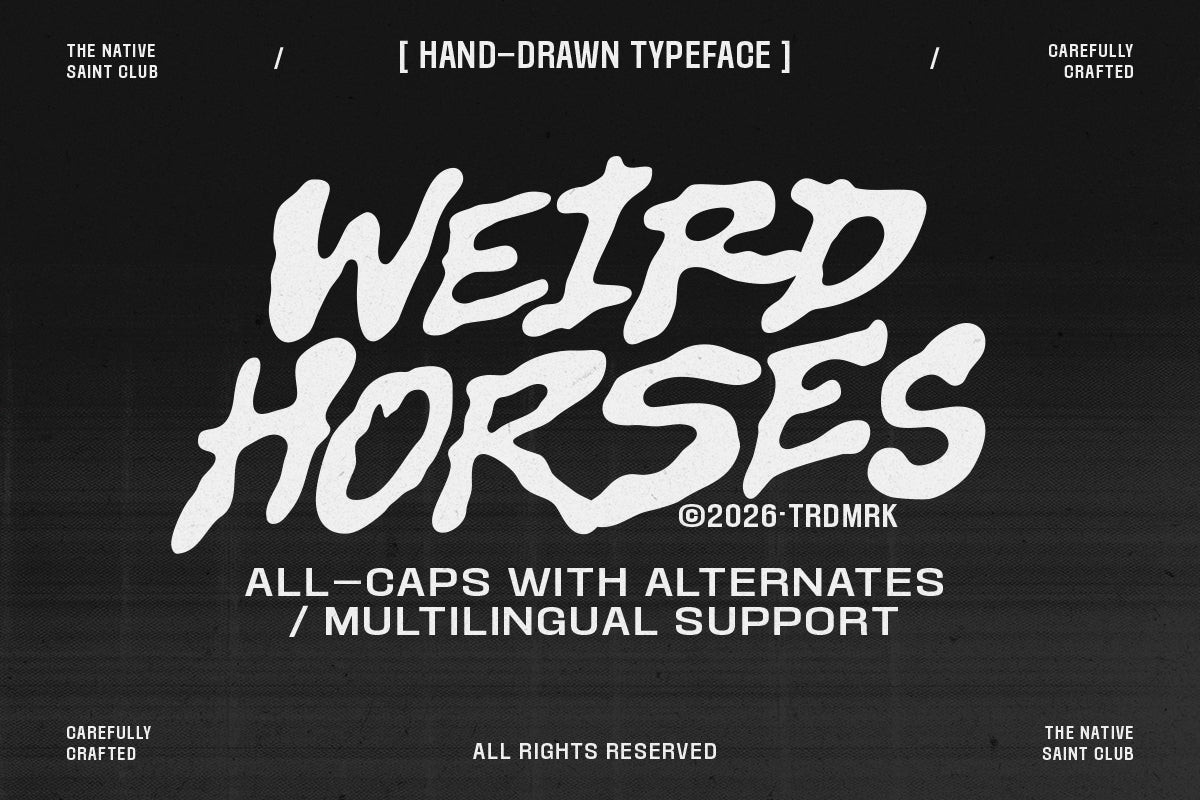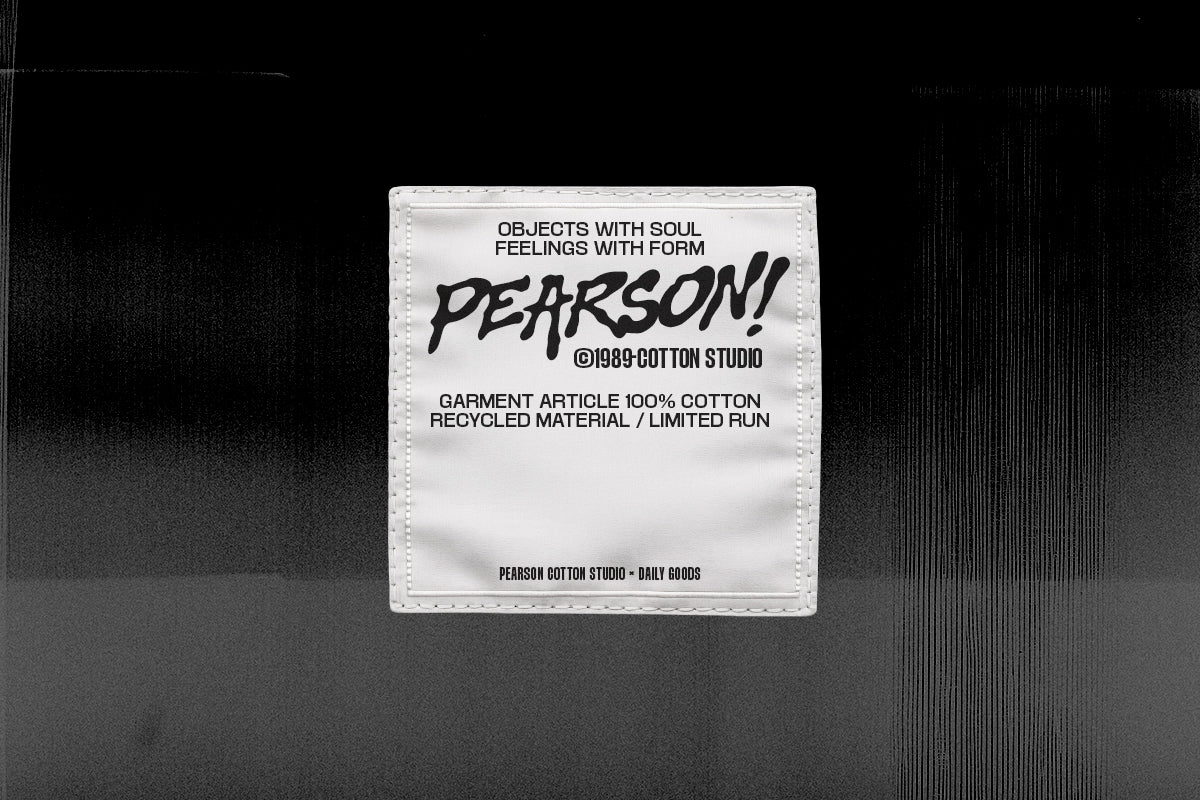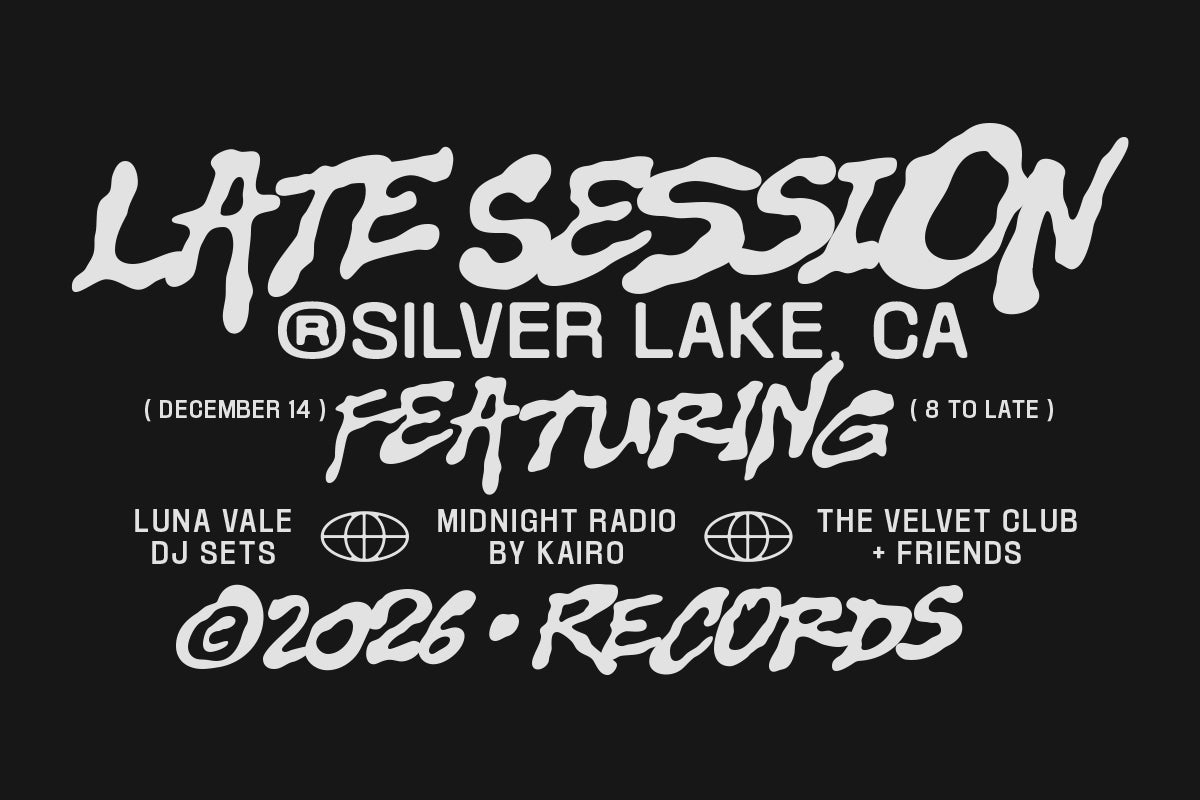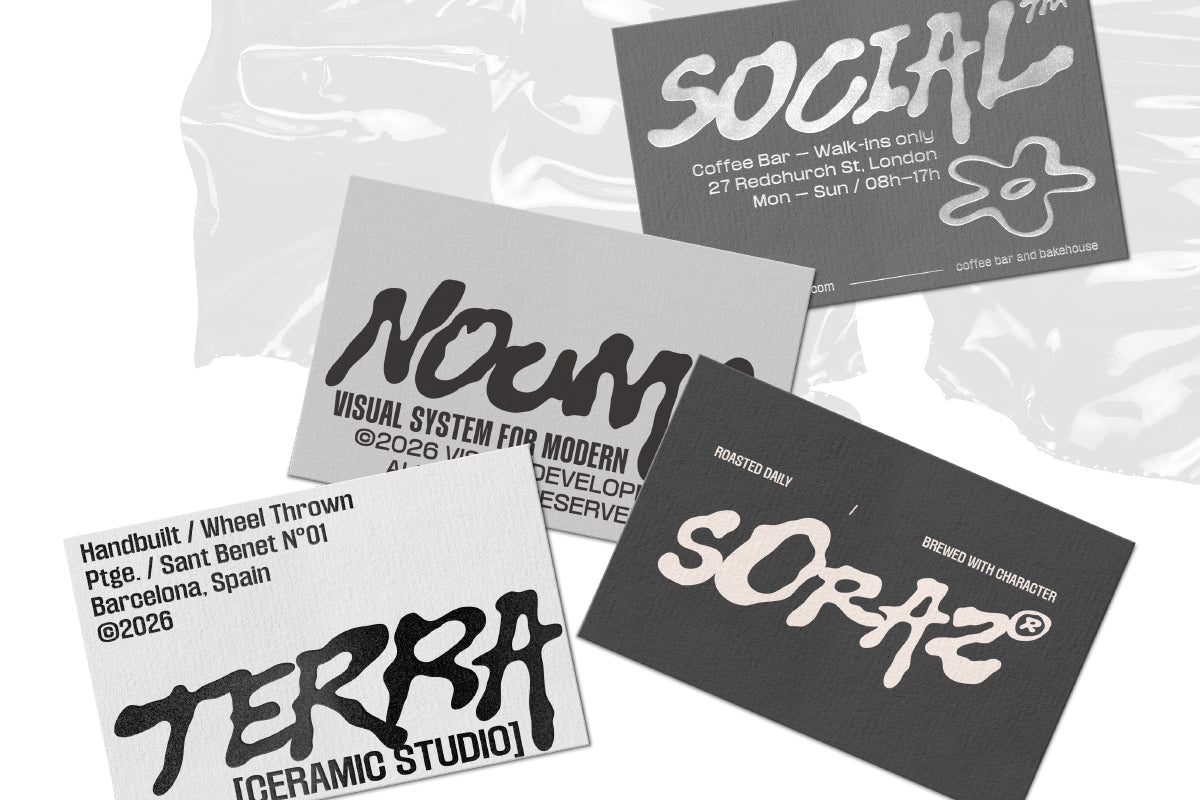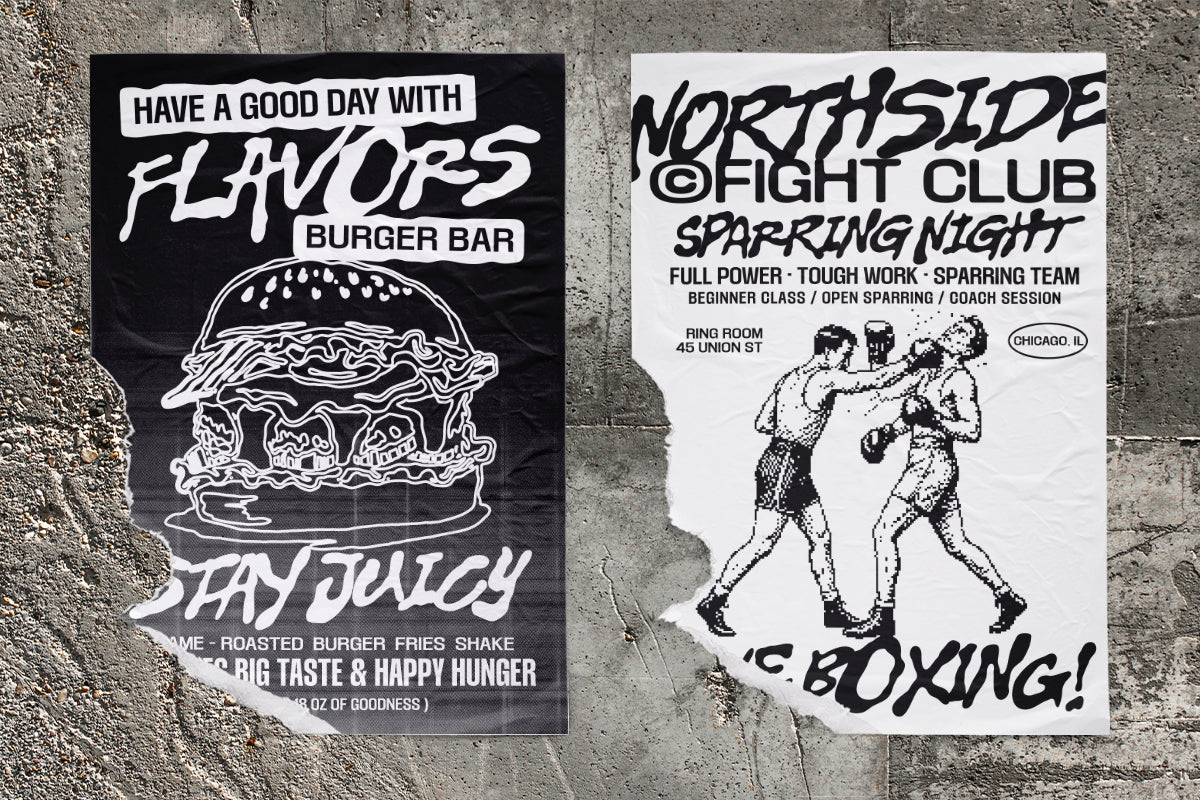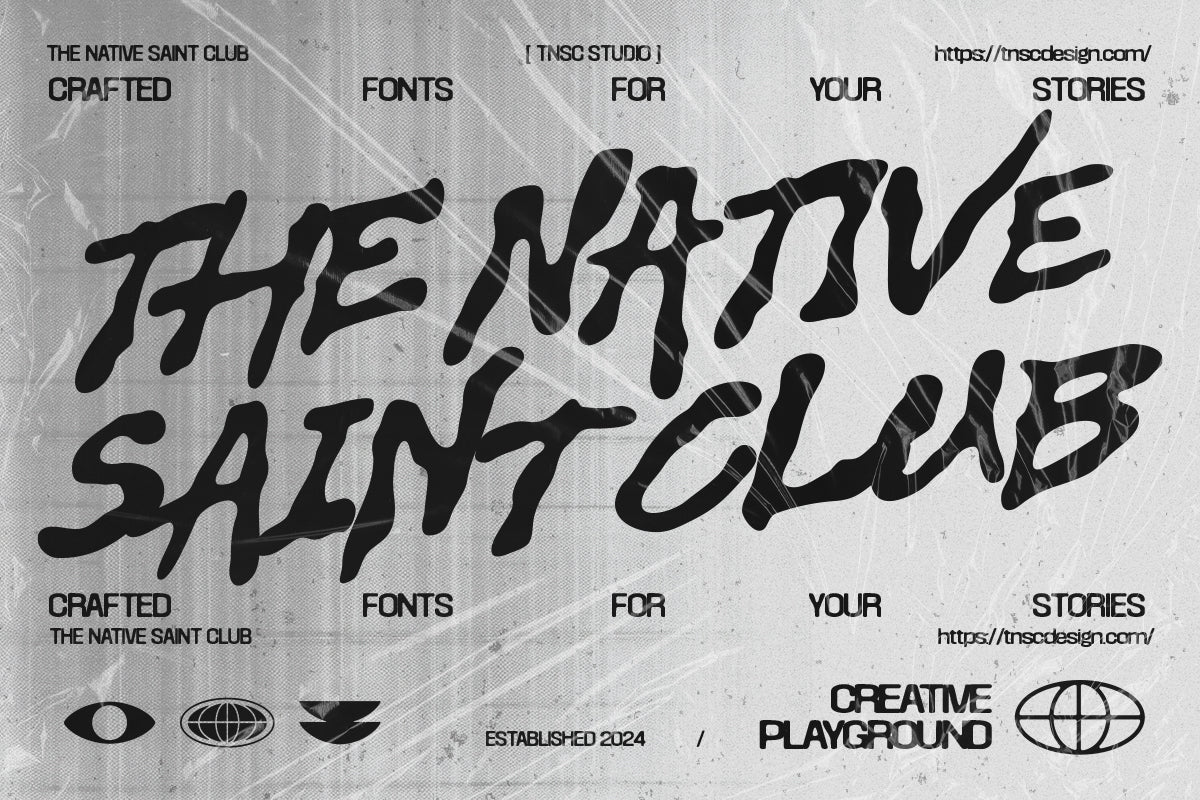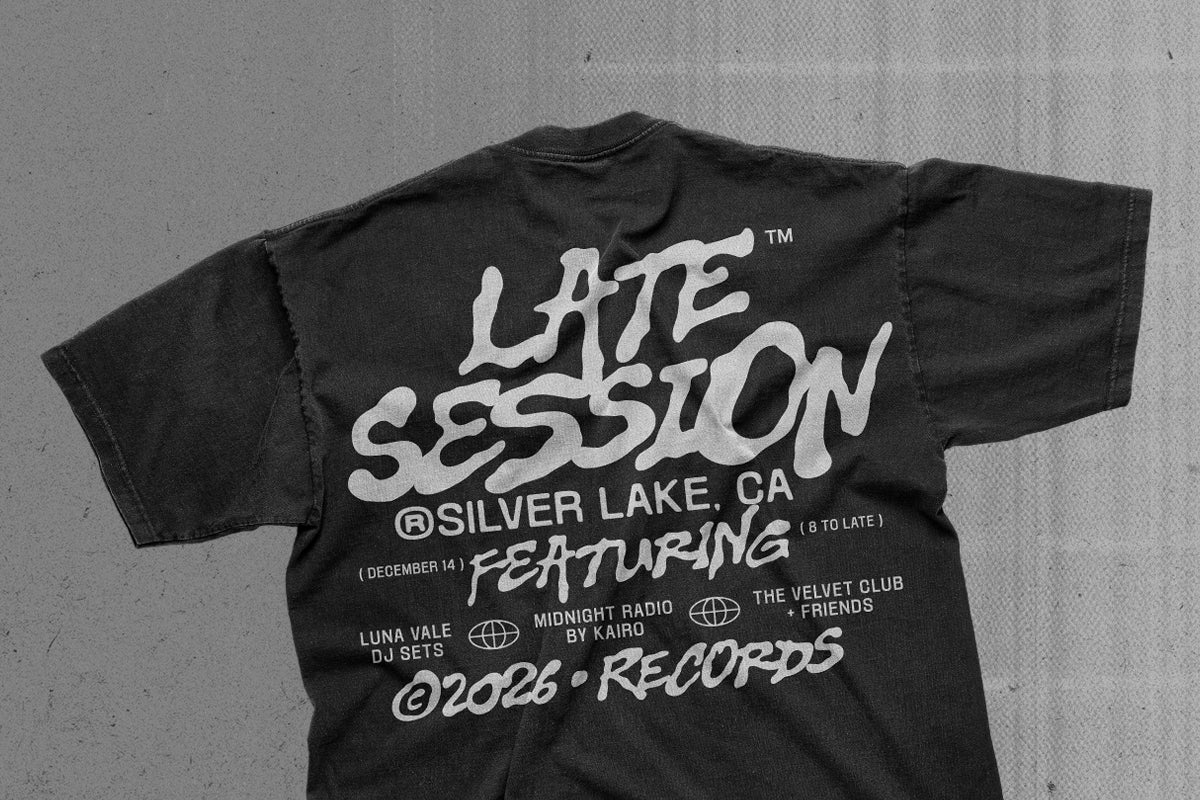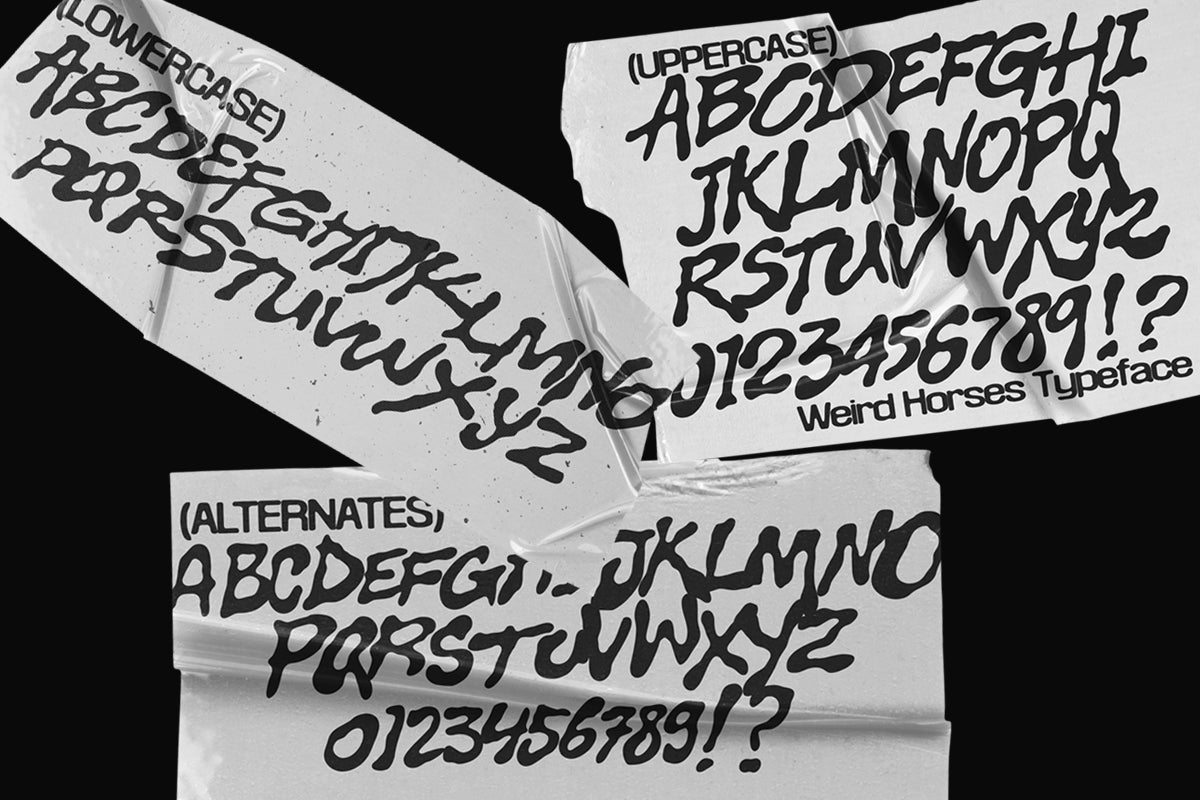
TNSC Weird Horses Typeface
Weird Horses is a raw hand-drawn display typeface built on bold strokes, irregular letterforms, and a strong underground energy that resists every instinct toward refinement. Each character feels pulled directly from a sketchbook or a wall — loose, intentional, and impossible to mistake for anything generated or sanitized.
That rawness is precisely what makes it work. Whether applied to gig posters, merch graphics, music visuals, streetwear branding, or creative layouts that need a loud handmade personality, Weird Horses brings an authenticity that clean vector type simply cannot replicate.